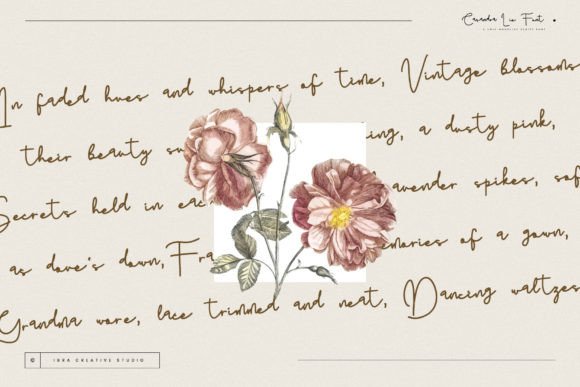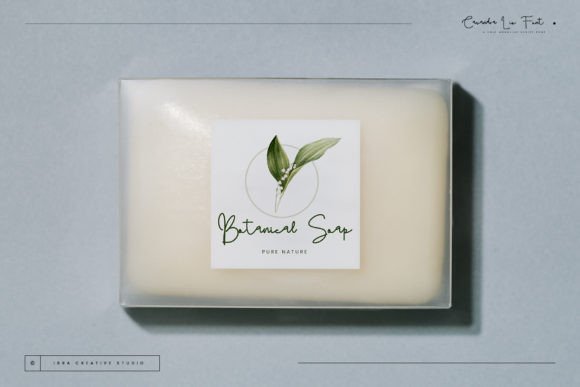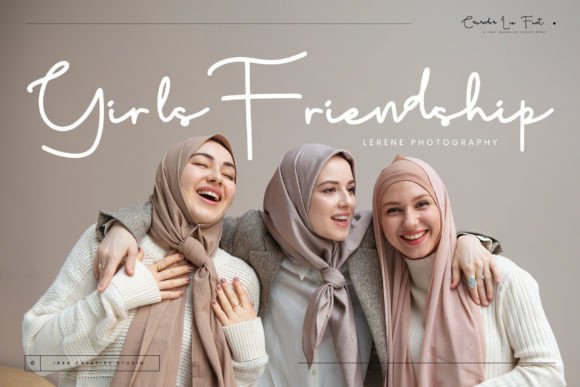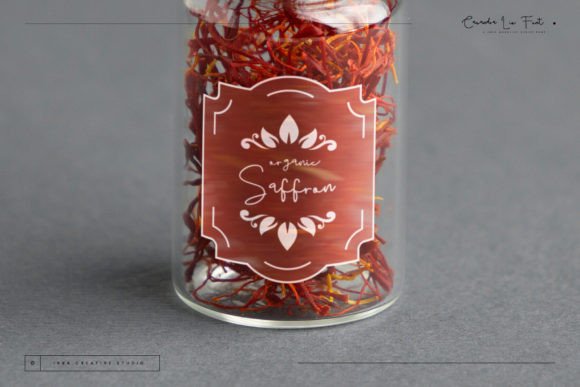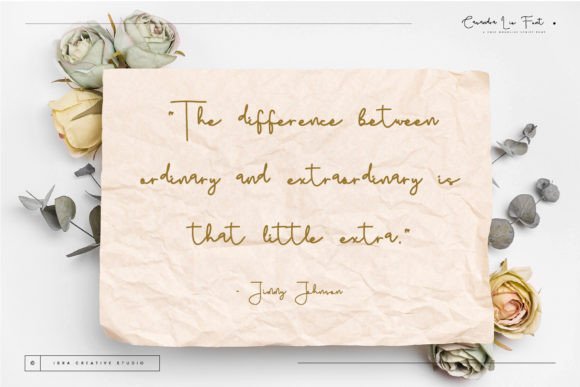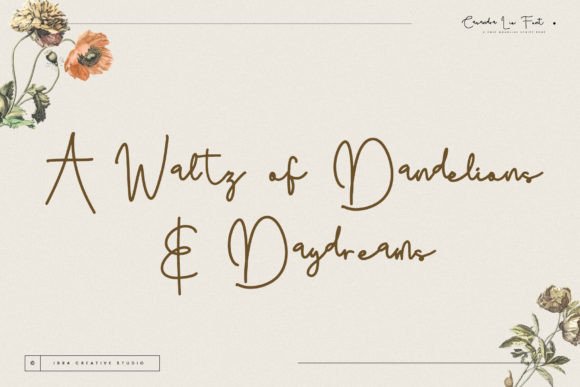
Casandra Lie Font: The Epitome of Elegance and Romance
Imagine a font that embodies the essence of a whispered secret, a name that evokes the mystique of a bygone era. Casandra Lie, a chic monoline script font, is that very embodiment of elegance and romance. With its delicate strokes and effortless flow, this font is reminiscent of fine penmanship, gliding across paper with the precision of a skilled teacher.
The Essence of Casandra Lie
Casandra Lie’s design is characterized by slender forms, adorned with graceful swashes and subtle flourishes that hint at a hidden passion. Every letter seems to whisper tales of romance and intrigue, transporting you to a world of vintage Parisian boudoirs illuminated by candlelight. The font’s monoline script style gives it a sense of fluidity, as if the letters are dancing and twirling across the page.
Inspirations and Associations
As you explore the intricacies of Casandra Lie, you can’t help but imagine secret love letters penned under twilight skies. The font’s airy charm and effortless elegance evoke the nostalgia of handwritten invitations to soirees under the stars. It’s a font that conjures up images of a bygone era, one where romance and mystery were woven into the very fabric of everyday life.
Design and Craftsmanship
Casandra Lie’s design is a masterclass in typography, with each letter meticulously crafted to convey a sense of refinement and sophistication. The font’s monoline script style is both modern and timeless, making it perfect for a wide range of design applications. Whether you’re a designer, crafter, or simply someone who appreciates the art of typography, Casandra Lie is sure to captivate and inspire.
Uses and Applications
So, how can you use Casandra Lie in your designs? The possibilities are endless! Here are a few ideas to get you started:
- Wedding Invitations: Add a touch of romance and elegance to your wedding invitations with Casandra Lie. The font’s whimsical swashes and flourishes make it perfect for formal and informal wedding stationery.
- Branding and Packaging: Use Casandra Lie to add a touch of sophistication to your brand’s packaging and marketing materials. The font’s modern, monoline script style makes it perfect for luxury brands and high-end products.
- Stationery and Paper Crafts: Casandra Lie is a dream come true for paper crafters and stationery enthusiasts. Use the font to create beautiful, handmade cards, journals, and letters that exude elegance and refinement.
To get the most out of Casandra Lie, here are a few tips and tricks to keep in mind:
- Experiment with Swashes: Casandra Lie’s swashes and flourishes are a key part of its charm. Experiment with different swash combinations to add visual interest to your designs.
- Play with Ligatures: The font’s ligatures are designed to create a sense of fluidity and connection. Use them to add a touch of elegance to your text.
- Mix and Match: Don’t be afraid to mix and match Casandra Lie with other fonts. The font’s monoline script style makes it a versatile pairing for a wide range of typography.
Casandra Lie is a font that embodies the essence of romance, elegance, and refinement. With its delicate strokes, effortless flow, and whimsical swashes, this chic monoline script font is perfect for designers, crafters, and anyone who appreciates the art of typography. Whether you’re looking to add a touch of sophistication to your branding, create beautiful stationery, or simply indulge in the beauty of fine penmanship, Casandra Lie is sure to captivate and inspire.